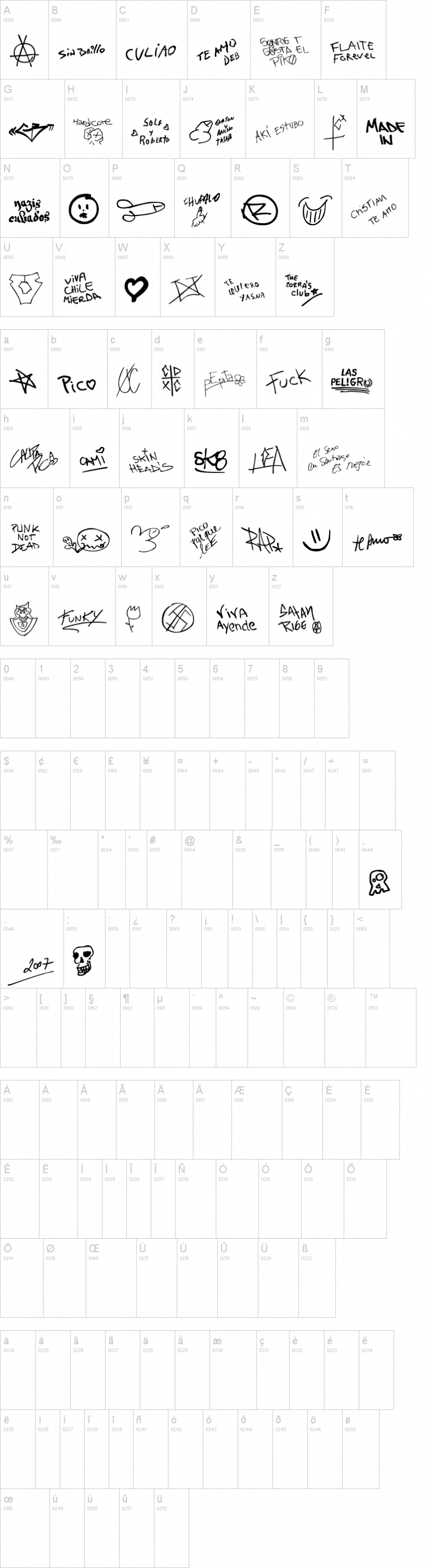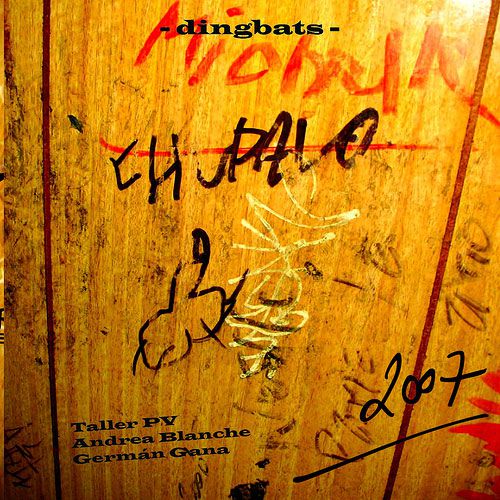
Шрифт Chupalo
It is a dingbat about the graf, logos and marks that are inside the public bathrooms in Bellavista and Republica neighborhood at Santiago de Chile (2007). Created with Andrea Blanche.